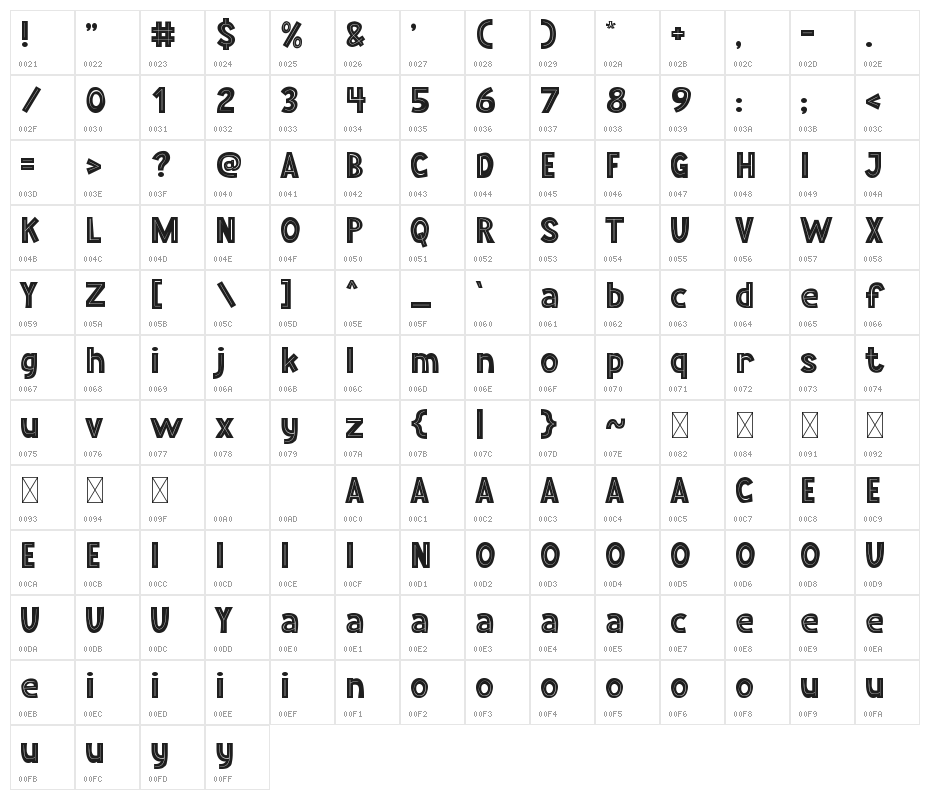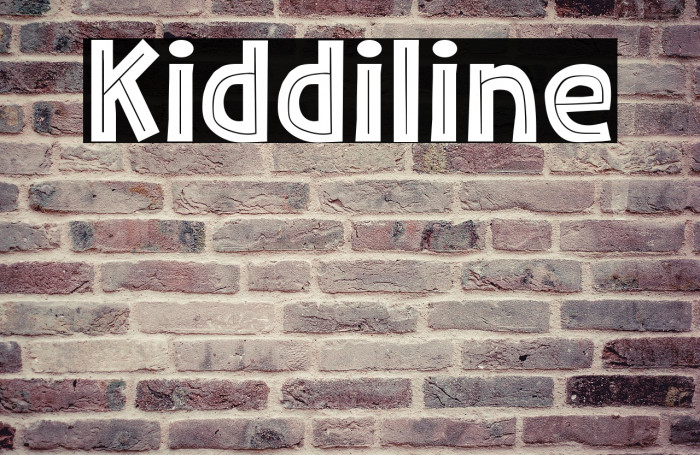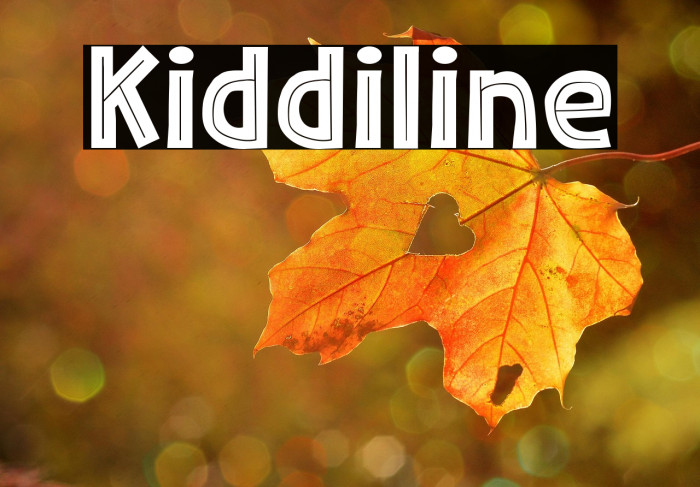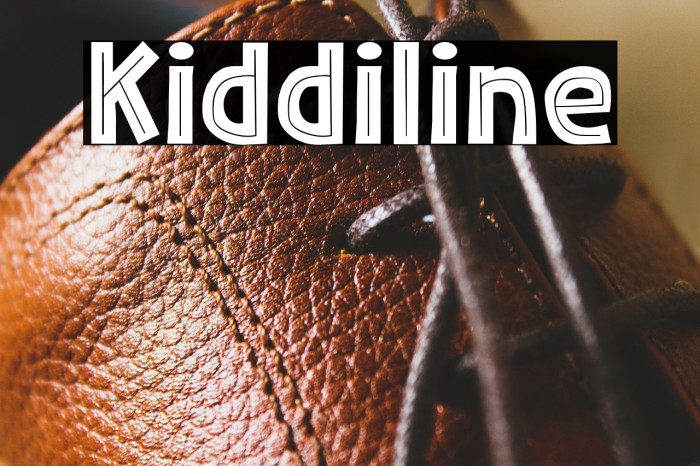
Kiddiline Font
This playful and bold font features a unique, outlined style that gives it a distinctive and eye-catching appearance. The characters are designed with a thick, uniform stroke that creates a strong visual impact. The uppercase and lowercase letters maintain a consistent height, providing a balanced look across the alphabet. The numbers and special characters are crafted with the same boldness, ensuring uniformity throughout. Its playful nature makes it ideal for projects that require a fun and engaging typeface. The font's design is well-suited for children's materials, playful branding, and creative projects that aim to capture attention with its bold and lively appearance.
| Overall Style | Playful, Fun |
| Proposed Projects | Ideal for children's books, playful branding, posters, and creative projects. |